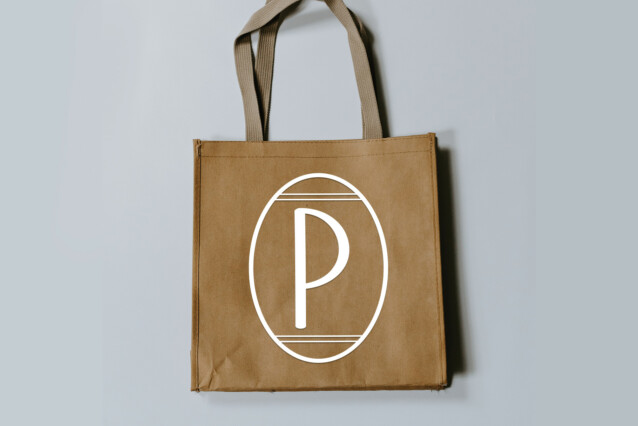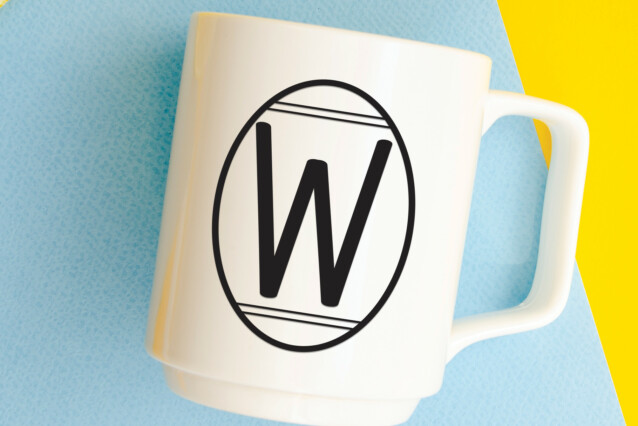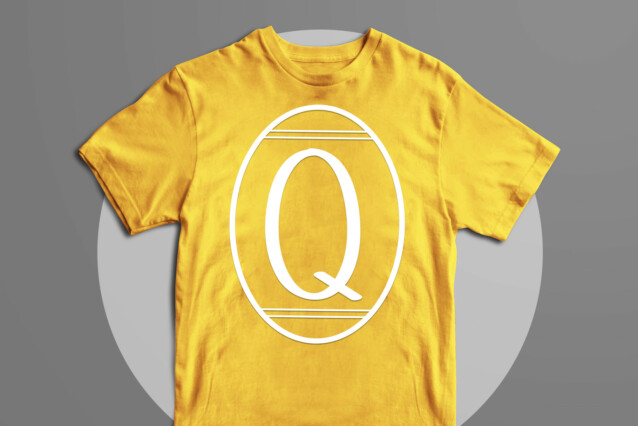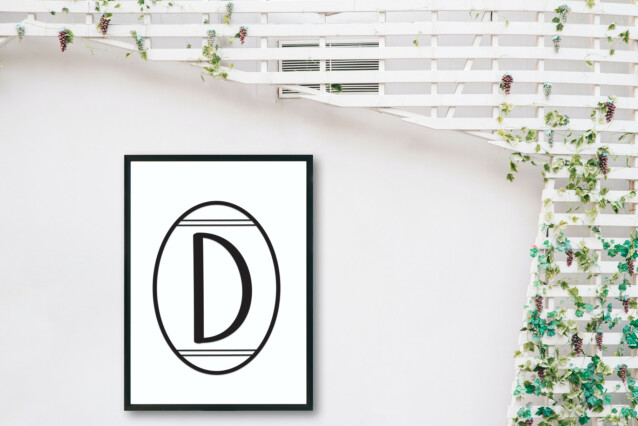
Ovum Display Font
Ovum Display Font is an organic and beautiful decorative font, featuring lovely ornaments. No matter the topic, this font will be an incredible asset to your fonts’ library, as it has the potential to elevate any creation.